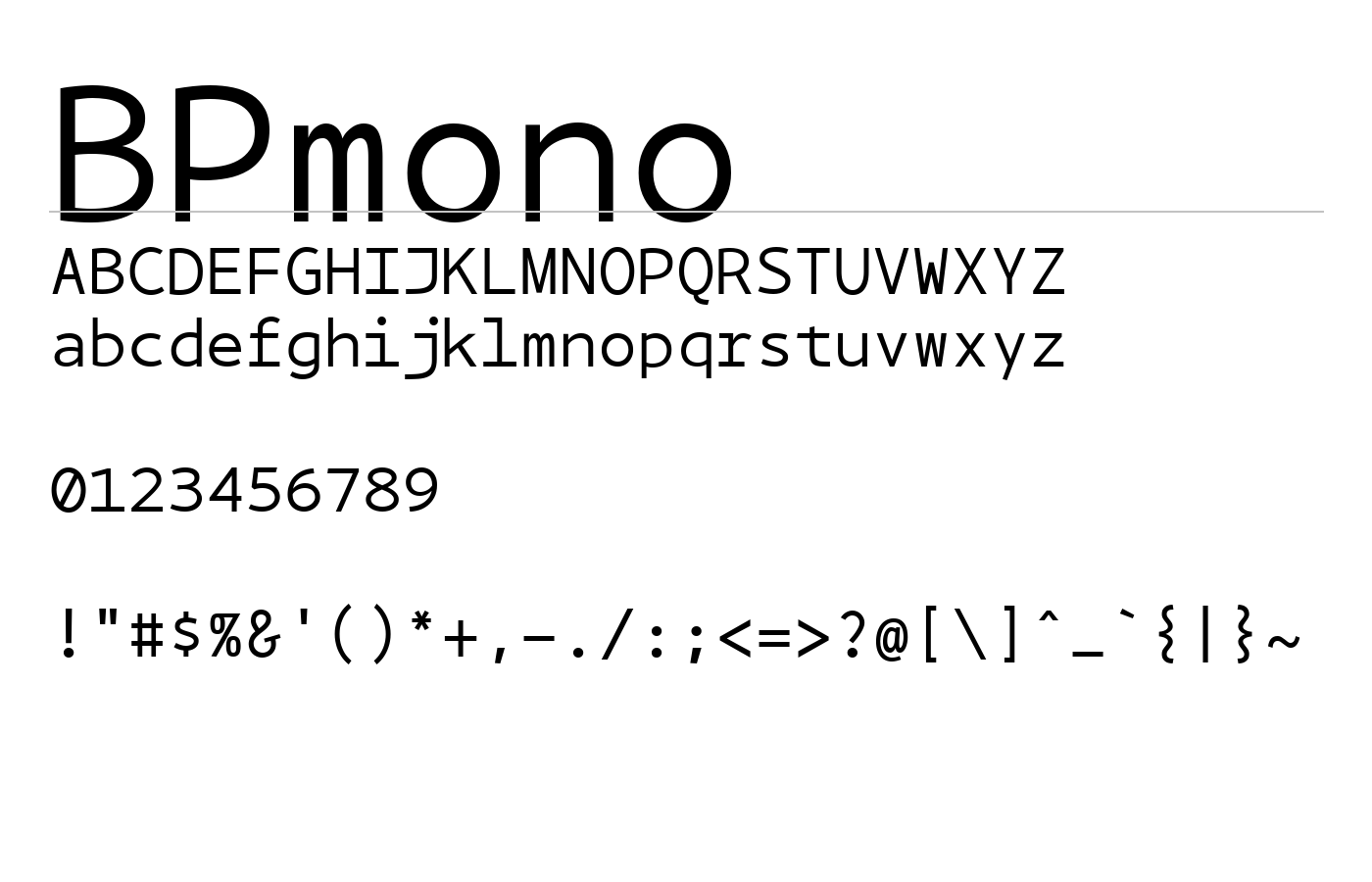
BPmono is a clean, monospaced sans serif font with a modern and technical feel, characterized by its uniform stroke weight, tall x-height, and geometric letterforms. Its precise and slightly condensed structure makes it ideal for coding, digital interfaces, and technical documents, offering excellent readability and a straightforward, no-nonsense style. This font works well for projects that require clarity and professionalism, such as software development, data presentation, and minimalist branding.
BPmono Font
About BPmono Font